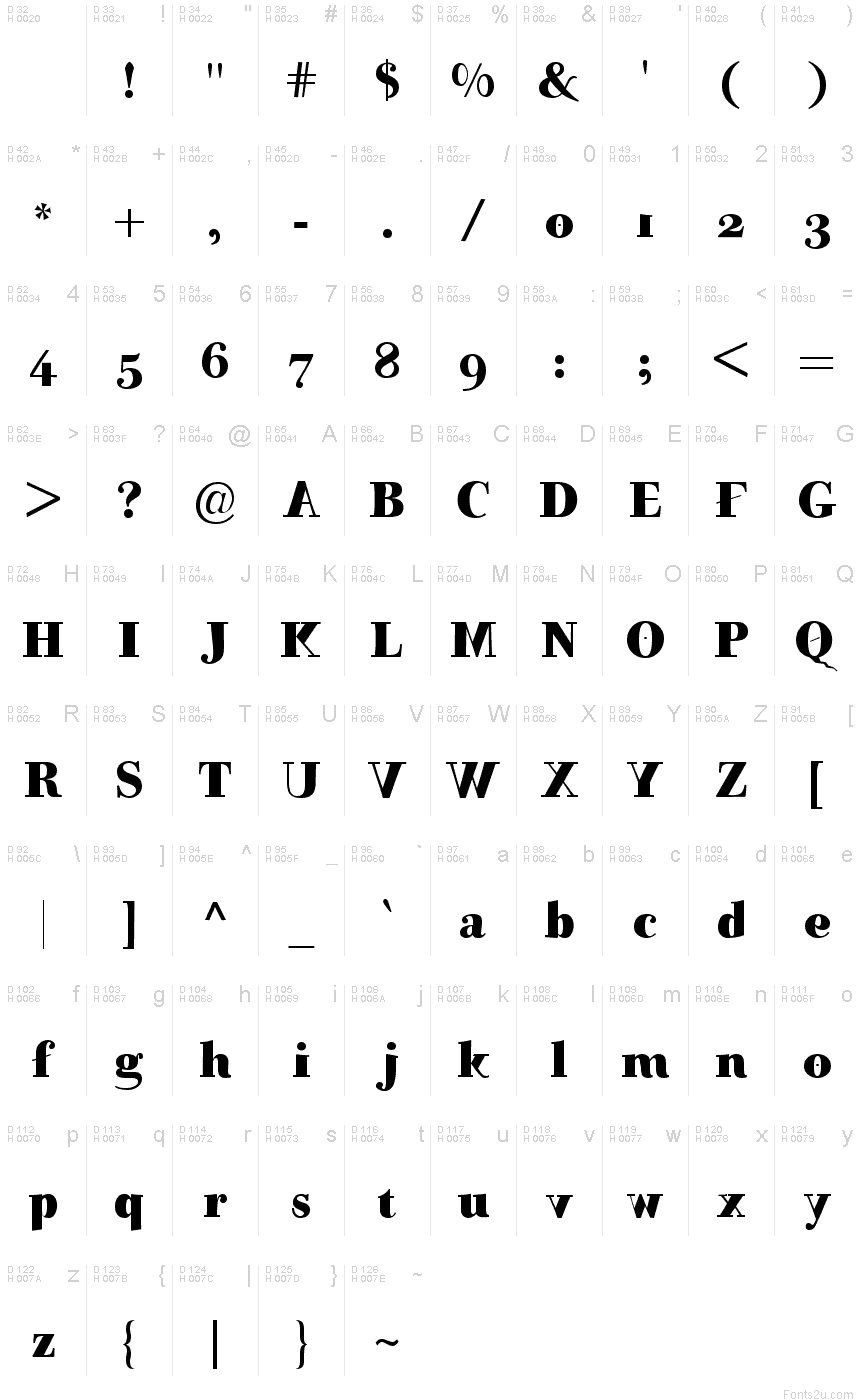
Mutoni Bold, designed by Manfred Klein for Classic Font Corporation, is a free high-contrast display serif with an imposing, tightly packed silhouette. Broad vertical strokes meet fine hairlines and sharp, compact serifs. Its rounded forms are almost solid, pierced by unusually small inner spaces.
Against fashion photography or illustration, the dense lettering can behave like a block of shape rather than a caption. It also suits record packaging and arts posters. Editorial covers are its clearest home, especially when typography needs image-like impact.